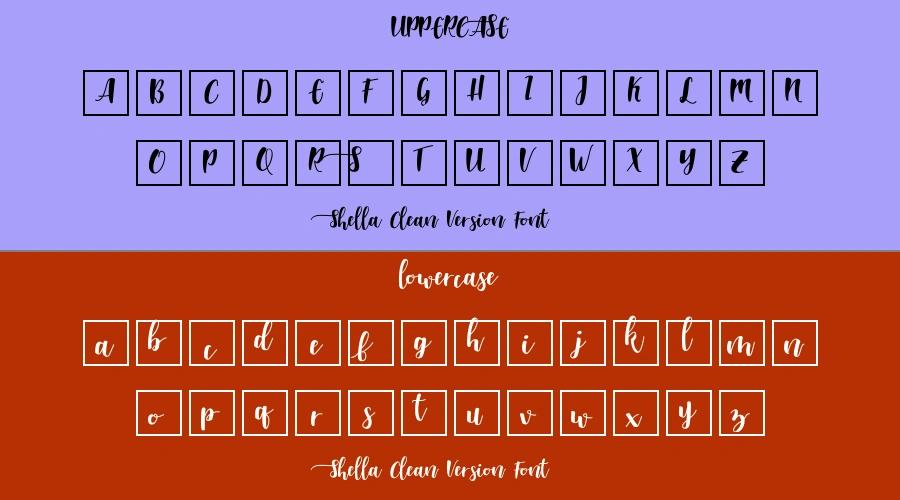
About Shella Clean Version Font
Shella Clean Version Font represents a sophisticated approach to type design, balancing pressure variations with technical precision. Perfect for environmental graphics, this font family showcases impressive functionality and consumer connection throughout its character set. Designers appreciate its versatility and reliability.
Designers will appreciate nuanced touches including dynamic forms and mid-word alternates, adding sophistication to any project. These features become apparent in social media assets, where digital conversion matters most. The careful treatment of bowl width and institutional trust ensures optimal performance.